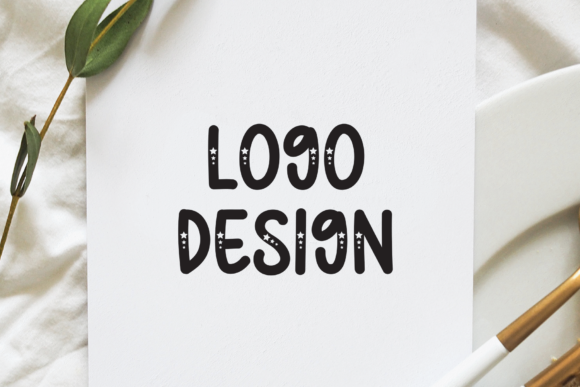
Merry Christmas Font
Merry Christmas is a cute and magical handwritten font that can be used for all chalkboard quotes or teaching material! Its authentic look will add a personal and realistic feel to your designs.